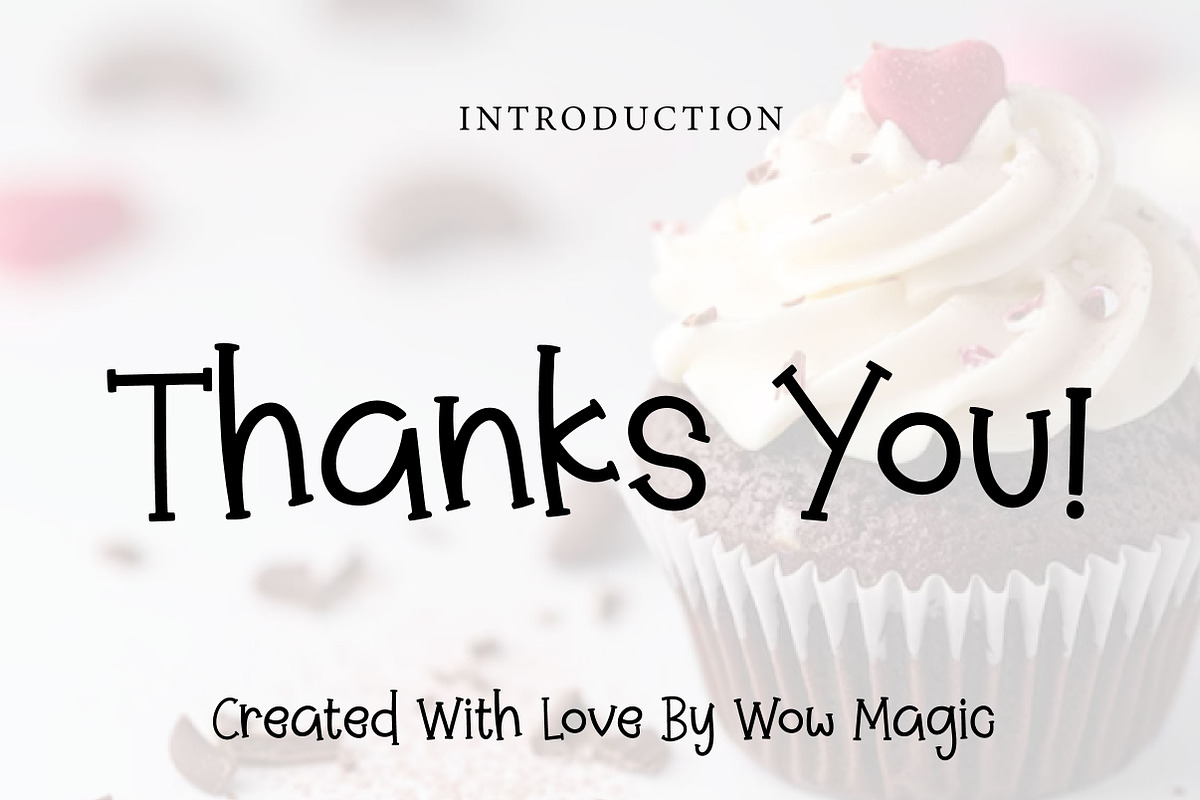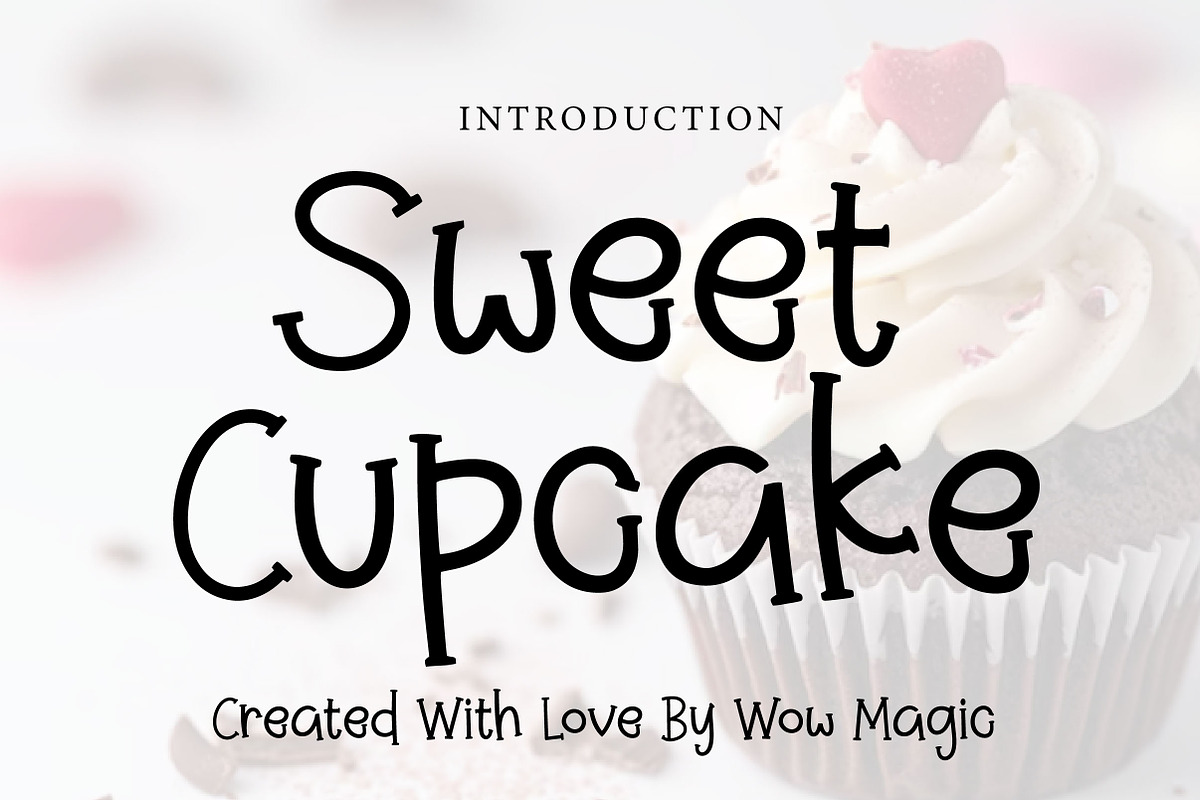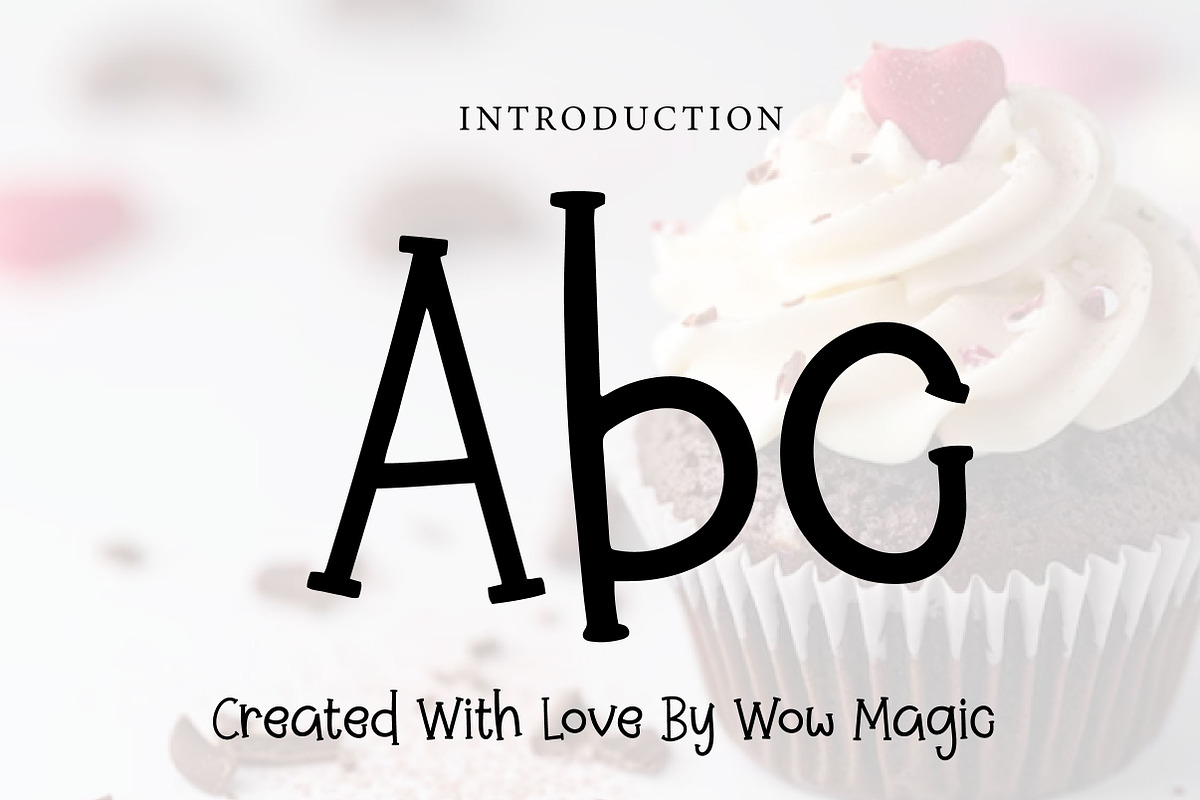
Sweet Cupcake
Sweet Cupcake – Cute Playful Display Font
Short Description Sweet Cupcake is a cute, whimsical, and playful display font perfect for kids designs, party invitations, branding, packaging, and cheerful creative projects.
Full Description Sweet Cupcake is a sweet and playful display font designed to add charm, fun, and personality to your creative work. With its soft curves, quirky letterforms, and handmade feel, this font brings a cheerful and lighthearted look to any design.
Inspired by cute and joyful themes, Sweet Cupcake is perfect for projects that need a friendly, fun, and imaginative style. It works beautifully for children’s branding, birthday invitations, bakery packaging, nursery decor, stickers, posters, and social media graphics.
Its unique handcrafted appearance gives your typography a warm and delightful character, making your text feel more expressive and memorable. Whether used in print or digital design, Sweet Cupcake adds a playful touch that stands out.
Perfect For: ⦁ Kids branding ⦁ Birthday invitations ⦁ Bakery and dessert packaging ⦁ Nursery and baby-themed designs ⦁ Posters and flyers ⦁ Stickers and labels ⦁ Social media graphics ⦁ T-shirt designs ⦁ Cute logos and headlines ⦁ Craft and DIY projects Font Features: ⦁ Uppercase letters ⦁ Lowercase letters ⦁ Numbers & punctuation ⦁ Cute and playful style ⦁ Handcrafted feel ⦁ Fun display look ⦁ Easy to use